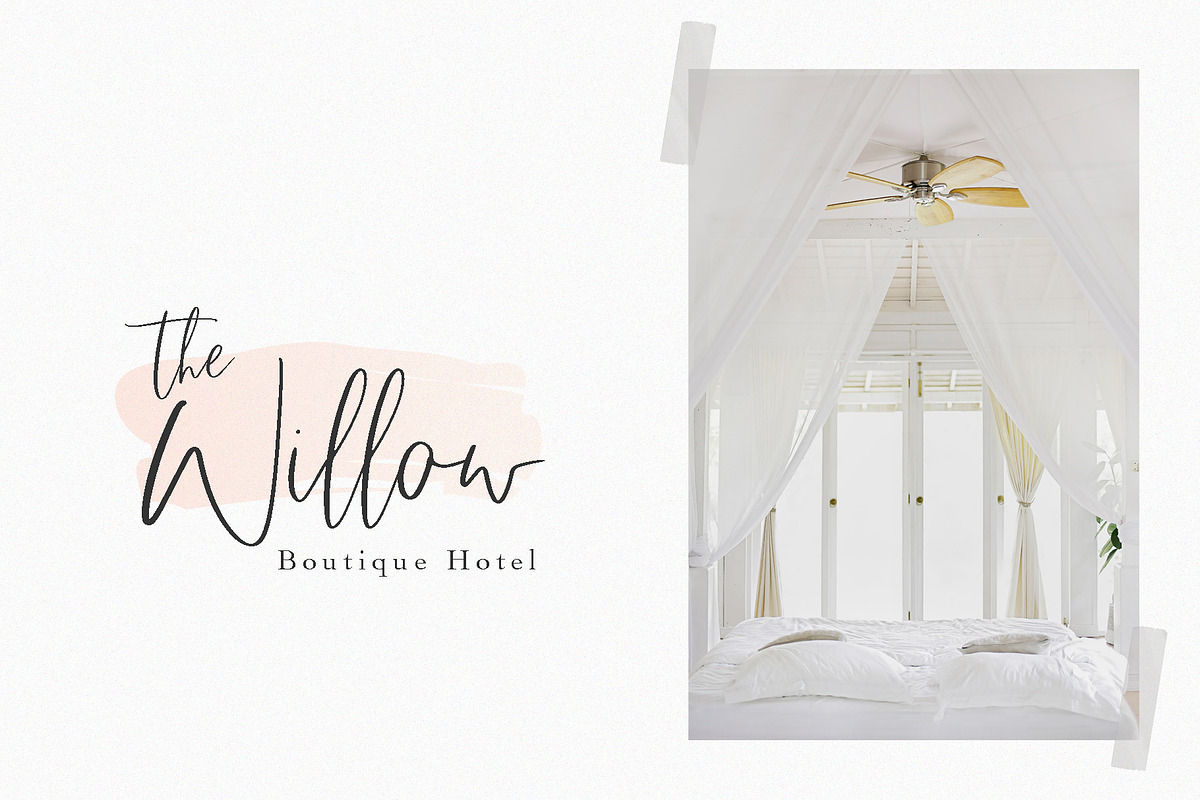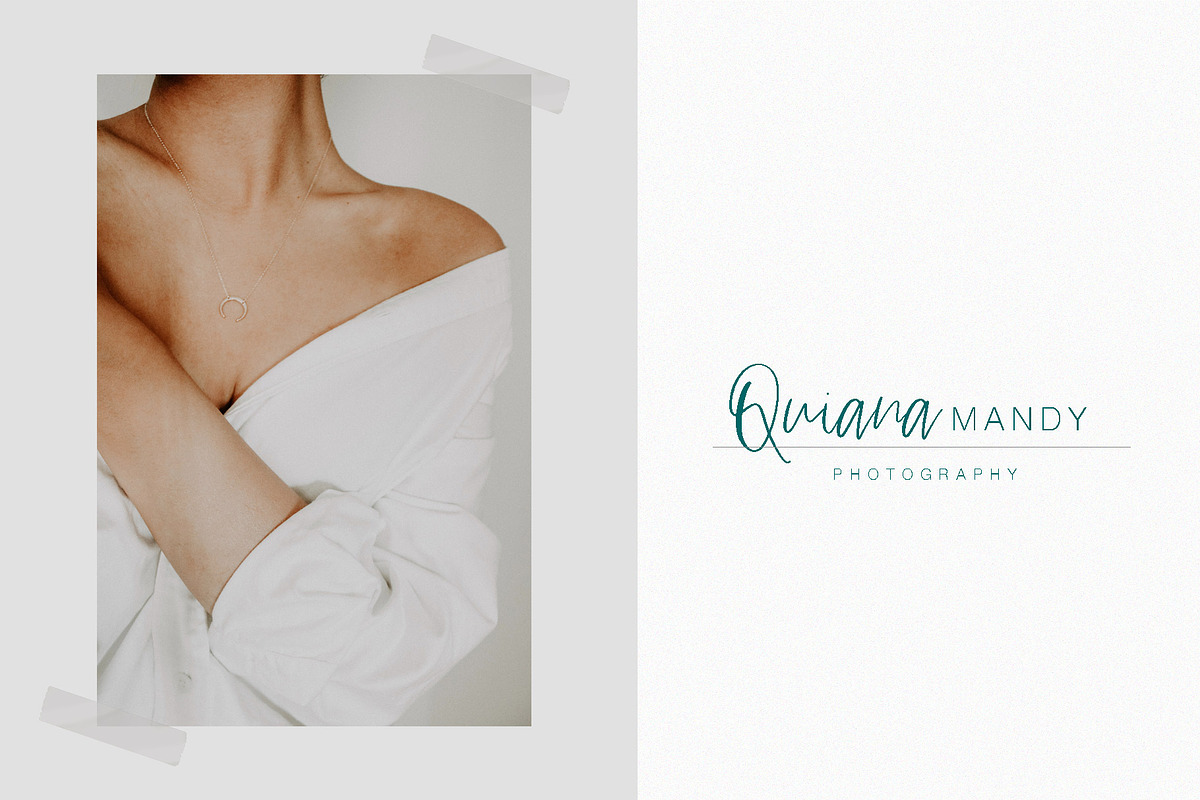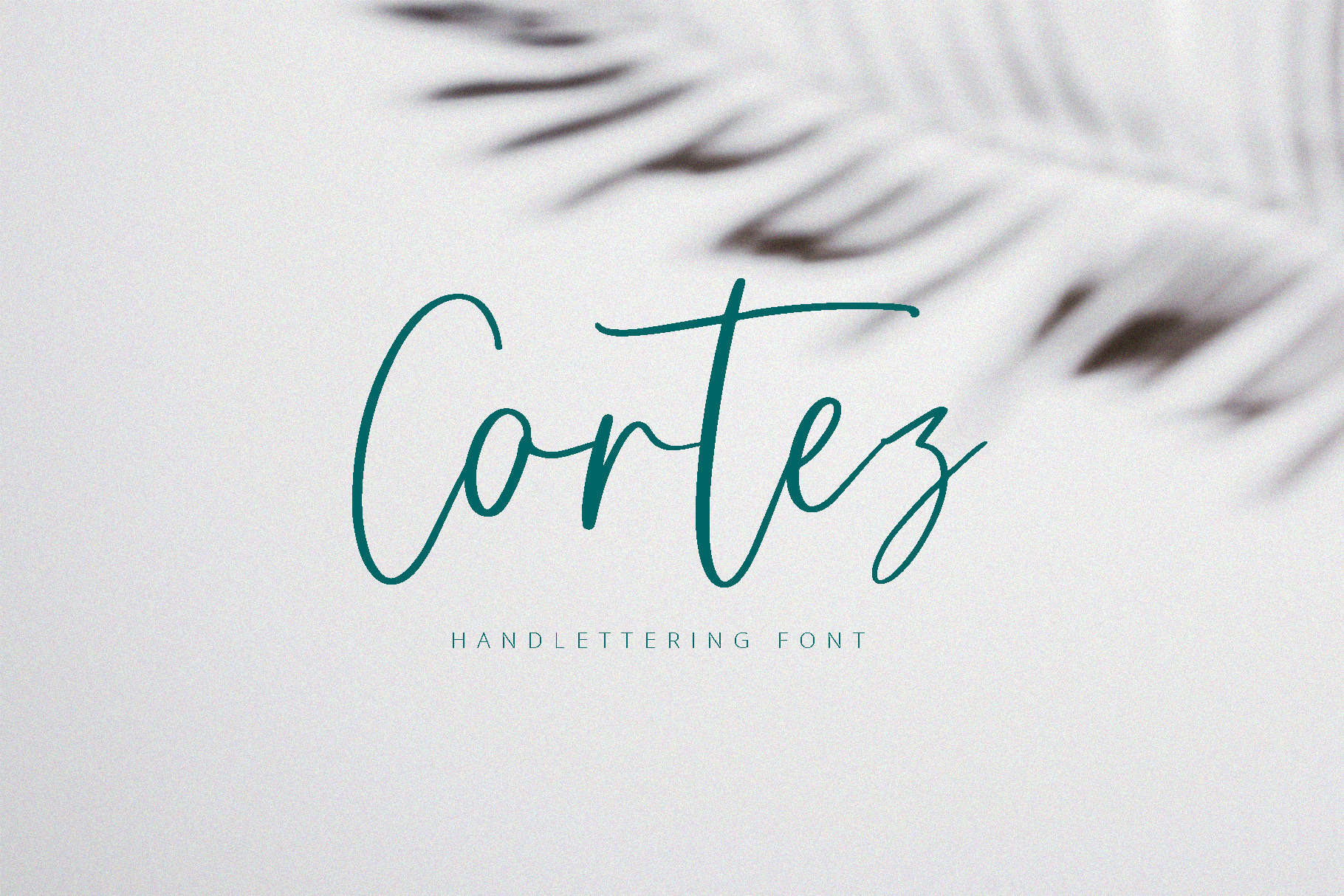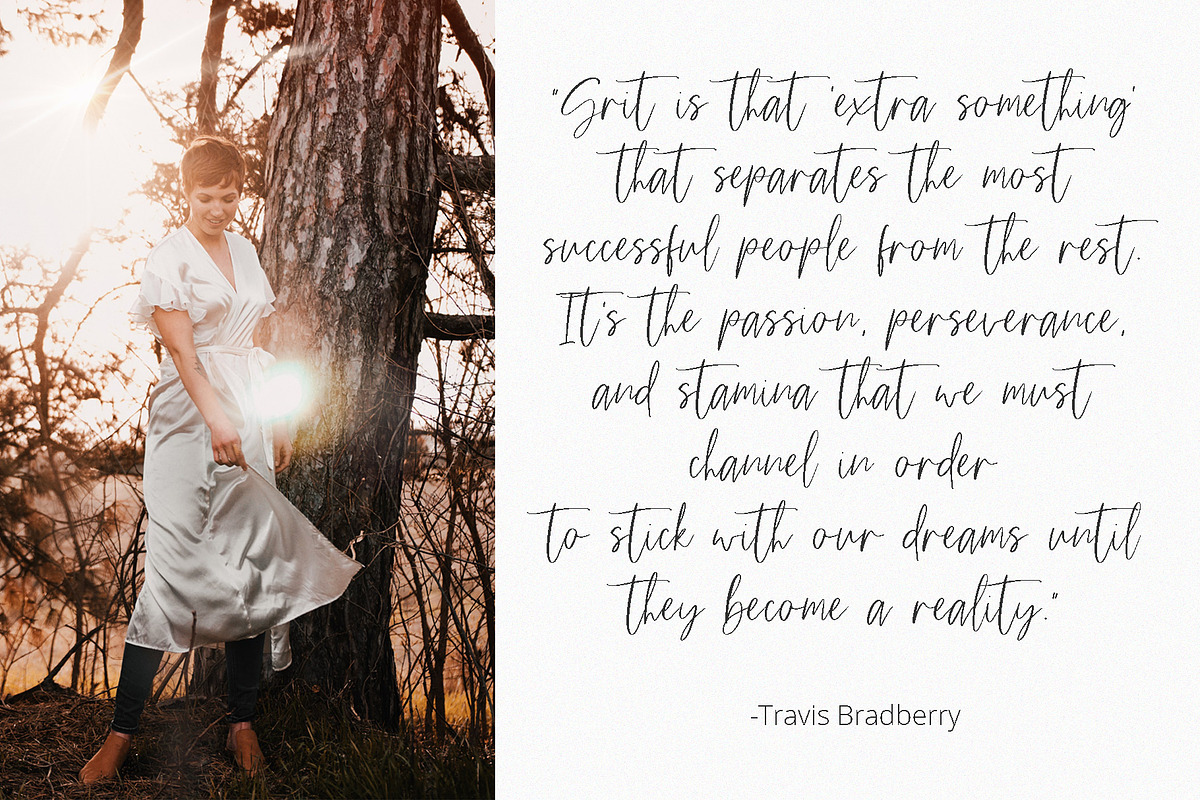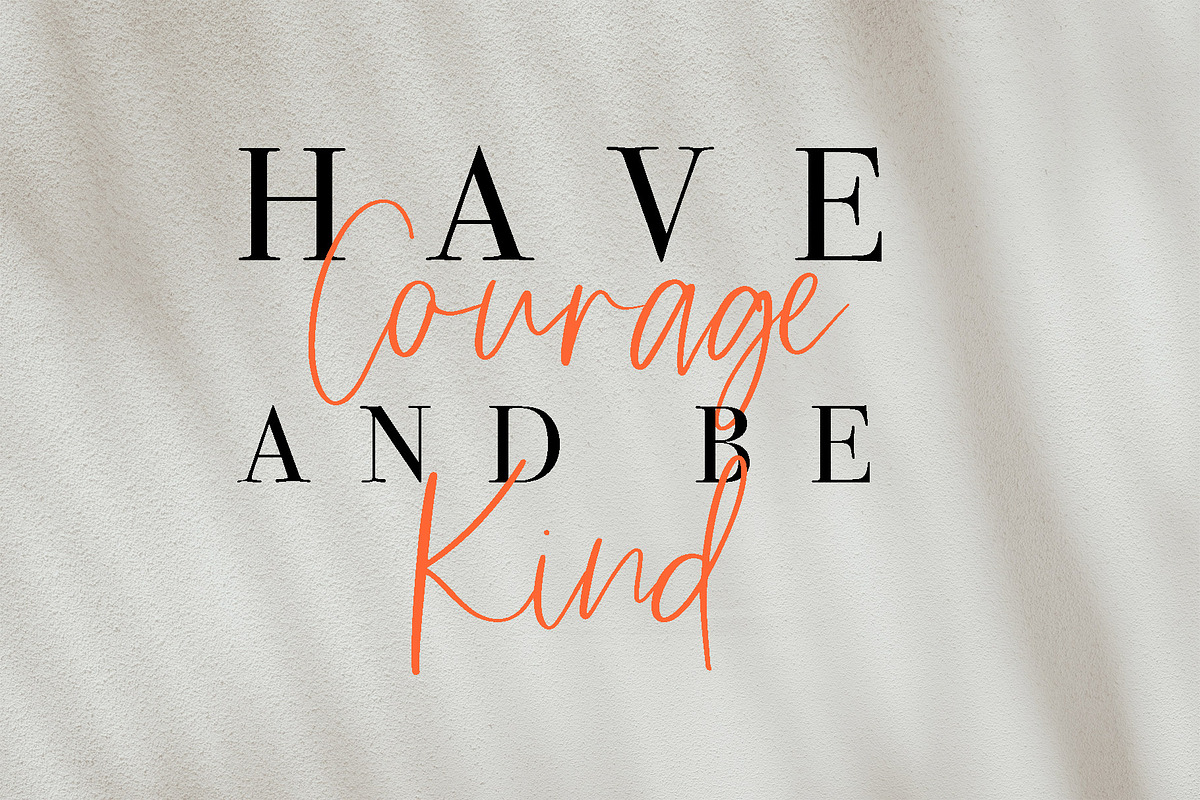
Cortez | Handwritten Font
Cortez is a classy script. With a stylish, expressive script companion, beautiful typographic harmony for a diversity of design projects,
This is perfect for branding. . You won't get cute, whimsical, funny logos, social media posts, advertisements & product designs. with this font.
Every single letter has been creative carefully. This font is perfect for making your set of invitations, Brand, blog posts, DIY projects, greeting cards, labels, quotes, posters, wall art, branding, packaging, websites, photo & photography overlays, signs, window art, scrapbooking, tags and so much more!
multilingual support for the following languages: Cornish, Danish, Dutch, English, Estonian, Faroese, Filipino, Finnish, French, Galician, German, Icelandic, Indonesian, Irish, Italian, Norwegian Bokmål, Norwegian Nynorsk, Portuguese, Spanish, Swahili, Swedish, Swiss German.